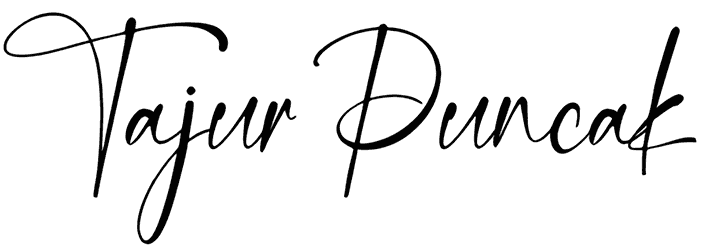
Tajur Puncak Font
The free spirit of Tajur Puncak is so evident in its gentle flow of letters that, from now on, looking for any other signature font will be just pointless because, honestly, we highly doubt that anything else can come close to its artistic mood.
Plus, it has enough elegance in its feminine handwriting that you’ll have no trouble setting it as the business card font for piano teachers, photographers, and chefs, or the label on sunglasses, women’s apparel, and more.